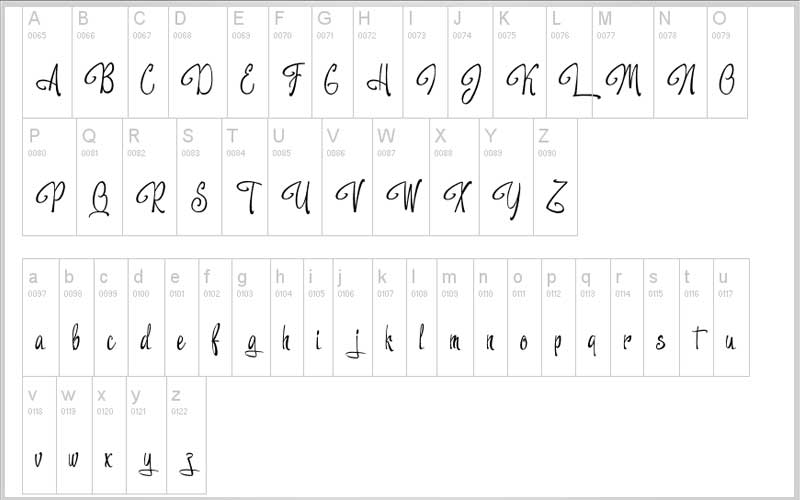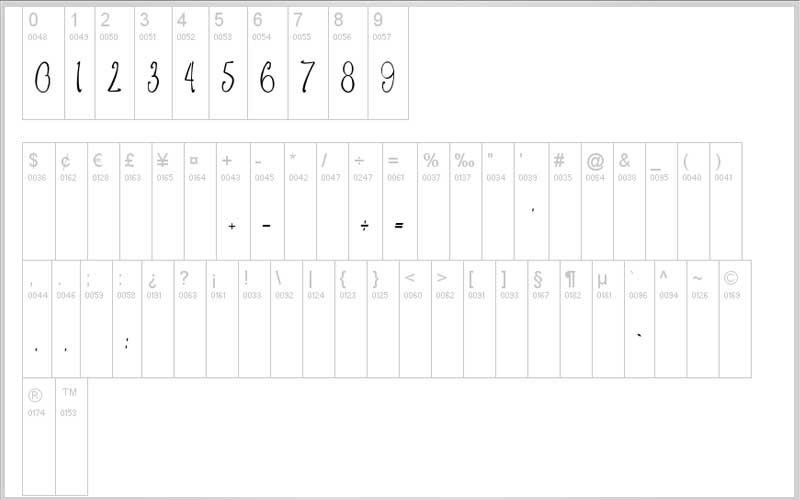
Night Of The Dragons Calligraphy Font Free Download is a stylish font for personal projects. It impresses you with its basic features.
You can make use of the font to make texts for designs such as posters, cards, invitations, headlines of blogs, etc. It also aims to help you retouch every detail of your texts. You can show your styles through the use of uppercase letters, lowercase letters, and special characters.